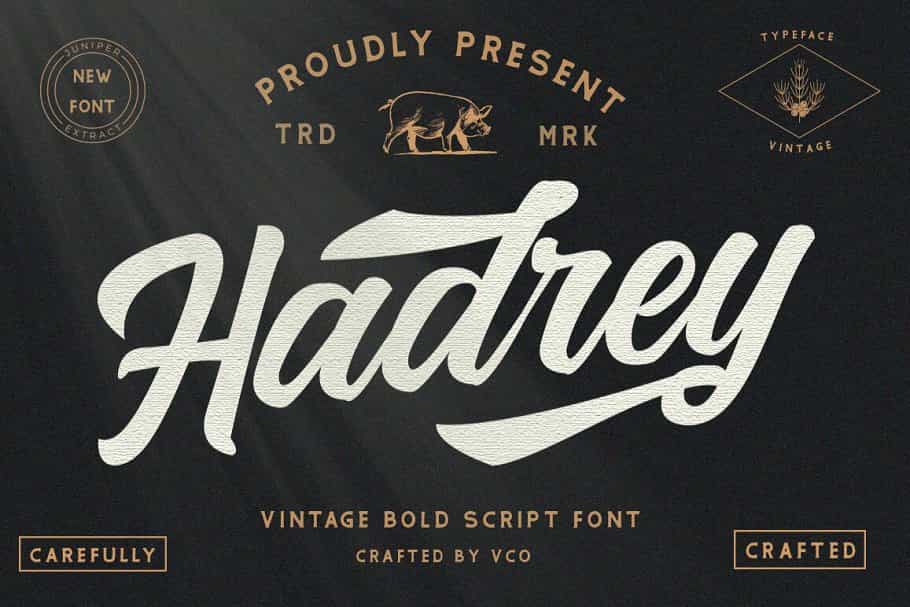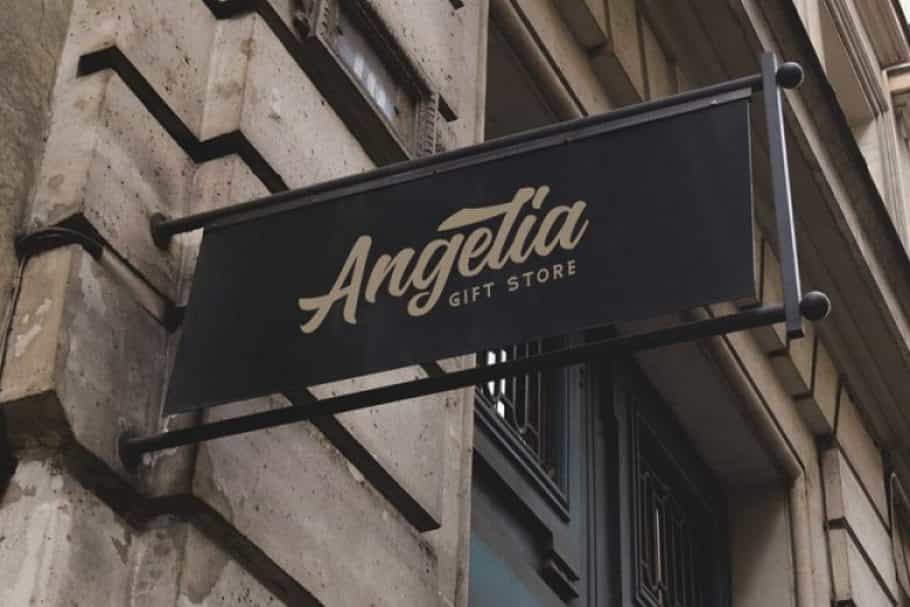
Hadrey gets ideas from both the vintage and the modern designs. A font combination that uses two styles (Modern sans serif caps and Vintage Script), this is a combination that you will begin to see more and more in design projects.